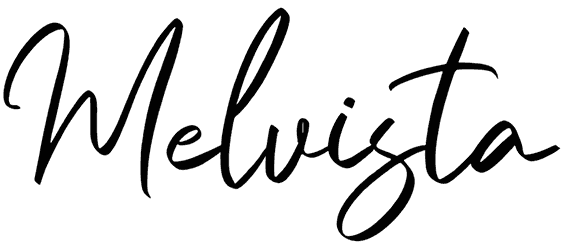
Melvista Font
Melvista goes back to the time when handwritten letters were used to express our feelings to loved ones. If you want to inject some old-school flair into your designs and don’t want readability, say hello to this cutest handwritten font.
This script font contains all the necessary characters to give integration to your designs and is used in creating signs, labels, and packaging. So if you want to keep up with your competitors, keep this handmade font with a unique flow.